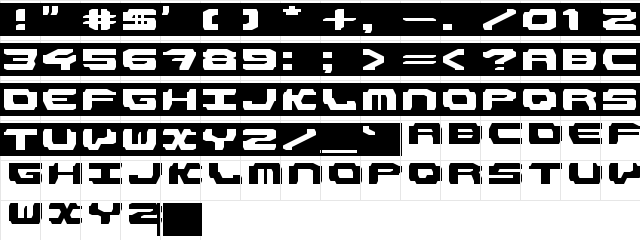
LDR#1 Regular
| Designer | Neoqueto |
Design Context for LDR#1 Typeface
LDR#1 is a composed and adaptable typeface that performs quietly and consistently across a wide range of design contexts.